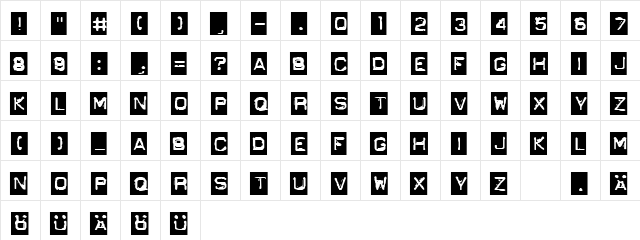
GF Ordner Normal Normal
Design Context for GF Ordner Normal Typeface
GF Ordner Normal takes a measured approach to typography — its balanced proportions and neutral character make it a reliable workhorse for both digital and print work.